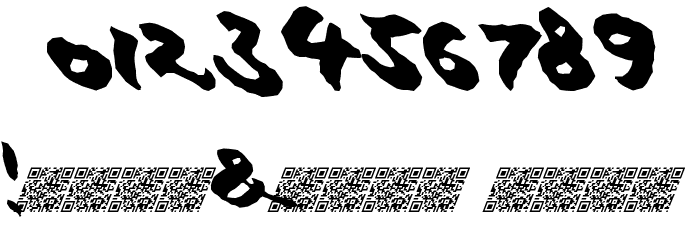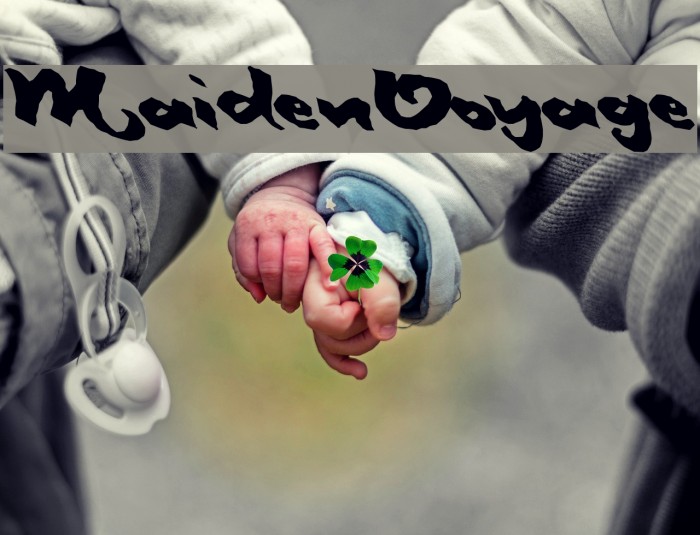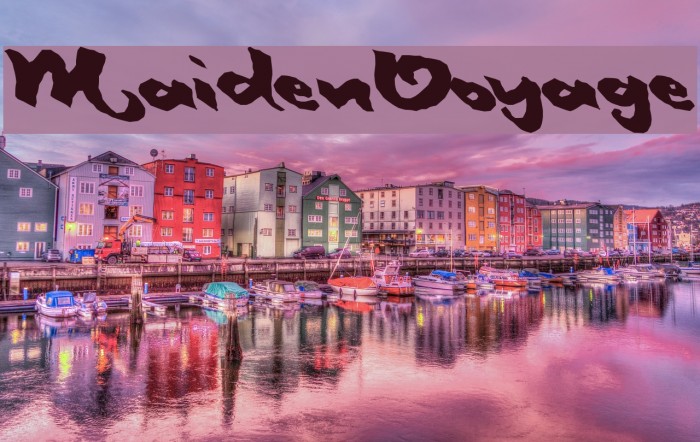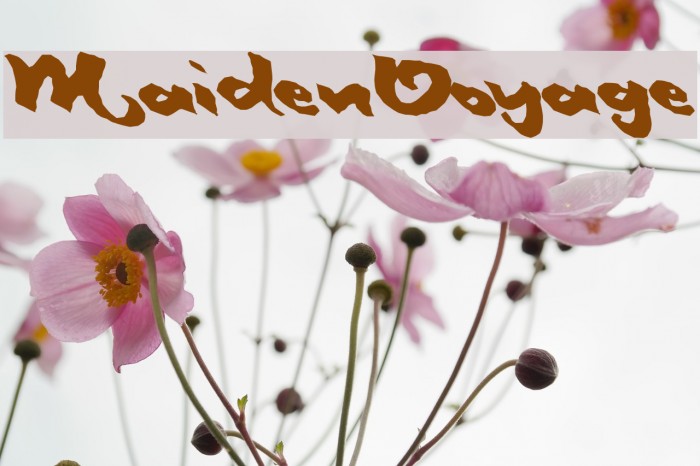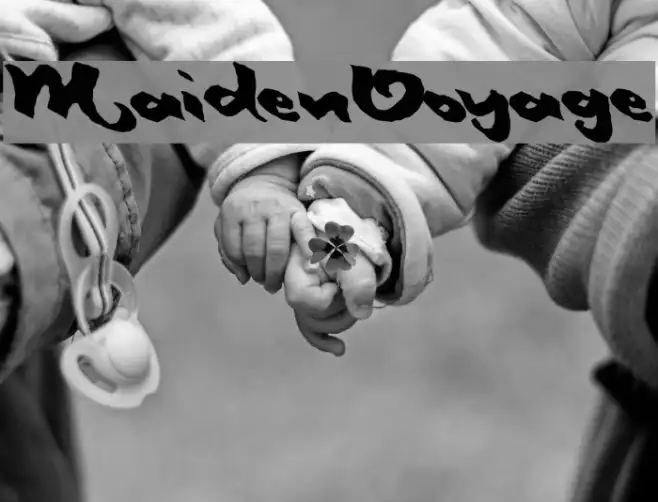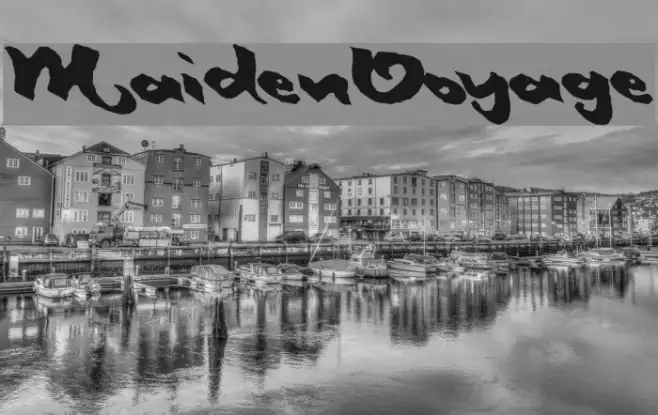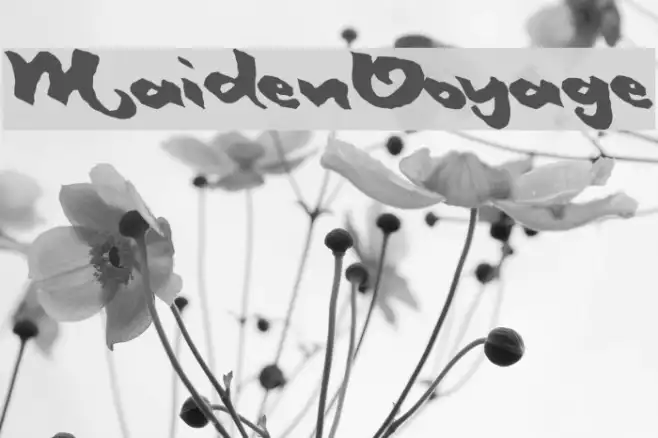
MaidenVoyage Font
This font features a bold, artistic style with a hand-painted appearance. The characters are fluid and dynamic, with thick strokes and a slightly irregular form that gives them a lively, expressive quality. The uppercase and lowercase letters maintain a consistent style, with a playful yet sophisticated flair. Numbers and special characters are equally bold and maintain the artistic theme, making the font suitable for creative and eye-catching designs. The overall look is reminiscent of brush calligraphy, with a modern twist.
A bold, artistic font with a hand-painted, brush calligraphy style.
- Proposed Projects: Ideal for branding, posters, album covers, and any project requiring a bold, artistic touch.
- Overall Style: Modern, Artistic